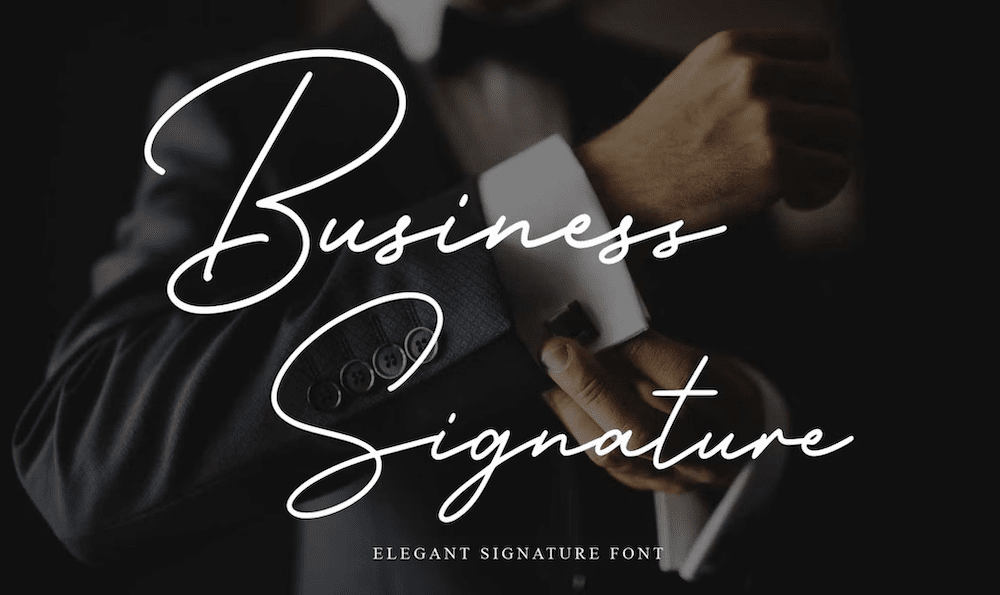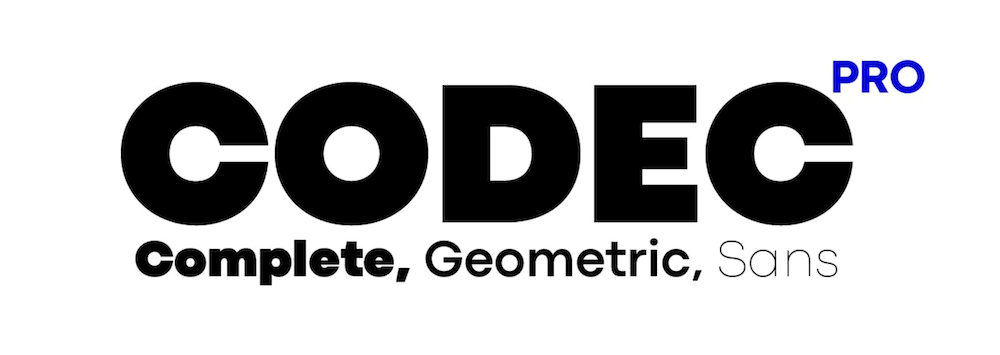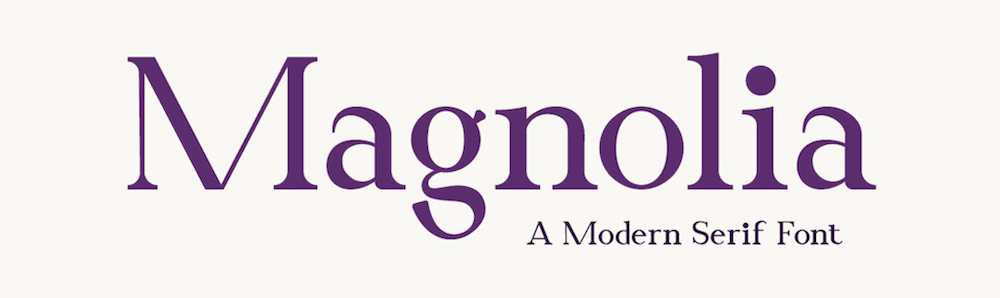
18 First-Class Business and Corporate Fonts for 2026
Branding is an integral part of any website, but especially for businesses. Part of this branding is how your present text. This can be a tough decision, because there are so many business and corporate fonts available. However, it does mean that you’ll be able to find something to suit.
The scope of business and corporate fonts is wide, due to different focuses. For example, some are suitable for headings, others are great for corporate branding in general, while others will help your body text shine.
For this post, we’re going to round up some of the best business and corporate fonts we can find. Before that though, we’re going to give you advice on how to choose the right business and corporate font for your needs.
How to Choose a Business and Corporate Font
It’s worth noting that while we’re using the term “font” here, our list contains ‘typefaces.’ The main difference is that a typeface contains a number of different fonts (such as bolded or italicized.) Even so, some of the entries in this list are actual fonts too.
As for how to choose one, it’s important to ascertain your needs. If you want a font for your logo, this will dictate what you look for. In contrast, if your site has a typography-driven design, clarity and readability will be vital. There are three key tenets you’ll want to consider:
• Make sure you understand your brand’s personality and audience. You could create a list of words to work with. This will help you narrow down what types of fonts to look for.
• Some fonts evoke emotions, much like colors do. As such, take some time to research font personalities too.
• Consider what other fonts you’ll use on your site. Because of this, how a font pairs with others is important to your overall branding and site usability.
Once you figure out the three elements, you’ll have enough to start to look at our following list of business and corporate fonts.
18 First-Class Business and Corporate Fonts
We’ve got a big list of business and corporate fonts to choose from, so we won’t waste any time getting to the list. However, note that we aren’t presenting these in any particular order. This means you’ll want to study each one to see if it fits the needs of your business.
1. Magnolia
The Magnolia business and corporate font.
First up, we have Magnolia. While this doesn’t look like a business and corporate font, it’s a modern serif design that has lots of uses.
For instance, while it won’t suit every business type, it could be good as a heading typeface for florists and feminine businesses. If you want to give your site a quirky, contemporary look, Magnolia might be a good option.
2. Business Signature
The Business Signature font.
Business Signature is another font that won’t suit every type of site. However, this script oozes class. Of course, this font is not one for your body copy. Instead, it will sit in headings, make its way into logos, and work well as a statement piece of text.
On the whole, Business Signature will let you personalize your brand. It will let you give your business a mark of quality and luxury that makes it one of the best fonts on this list.
3. Mislan
The Mislan font.
We have another heading and display font for you. Mislan projects power, and despite its look, we think it can work well with a many different businesses.
The font will sit well with creatives, fashionable websites, musicians, and more. Even so, given the right branding, we can see Mislan on lawyer sites and in other situations where a font such as Impact isn’t enough. All in all, Mislan is more versatile than it first appears.
4. Codec Pro
The Codec Pro business and corporate font.
Codec Pro is the first sans serif font on our list. Because it doesn’t stand out (unlike many of the other business and corporate fonts here,) you could use this font almost anywhere on your site.
For instance, it’s chunky enough to use as a display font. In contrast, lighter weights will be perfect for readable body text. The typeface as a whole is dependable, which can give any business the right air of trust and authority.
5. Yummy Delivery
The Yummy Delivery font.
Despite the name, Yummy Delivery isn’t only for delivery websites and businesses. It’s fun and quirky, and doesn’t take itself too seriously. We see it as part of a childcare business branding design sheet, or a health drink business. However, it could fit any business that values informality.